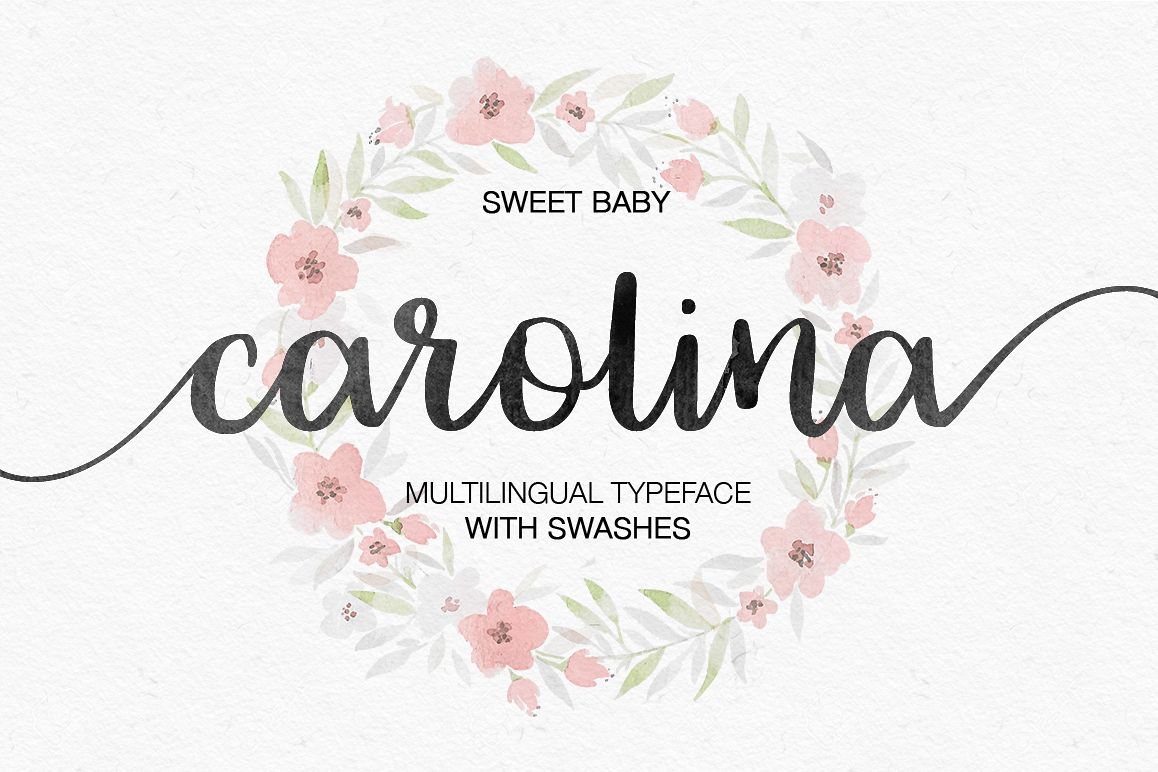
Carolina handwritten script with swashes
Carolina
- a new fresh handmade calligraphy font. Very suitable for greeting cards, branding materials, business cards, quotes, posters, and more!
The font is now divided into 2 versions.
• Regular - Full character set + no tails and no problems
• Swashes - ONLY TAILS (+ numbers and punctuation)
Now the font can be used in ANY TEXT EDITOR, without difficulties and dances with a tambourine. To add tails to the words you just need to select the Swashes font. The regular version will be written ALWAYS WITHOUT TAILS
I know that you love this font, so I made it better and easier to use. All for you, my beloved! :)
• Support ALL European Languages